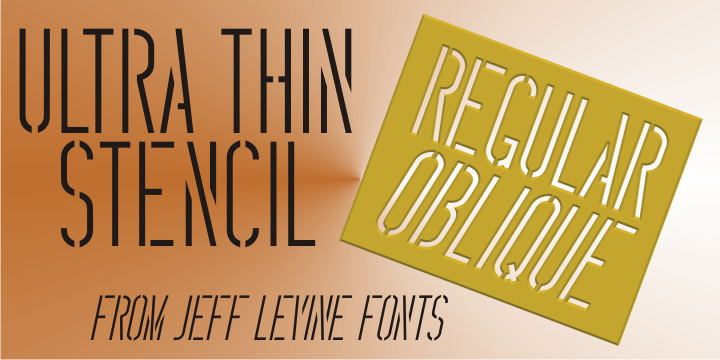
Ultra Thin Stencil
Online auctions offer a treasure trove of lost or forgotten merchandise, and many items pertaining to lettering just beg to be digitized into a typeface.
Case in point is a partial set of brass stencils that were the visual model for Ultra Thin Stencil JNL. While most of the brass interlocking stencils available now and in the past have bold lettering for easy readability, this particular set consisted of condensed letters with thin lines.
Available in both regular and oblique versions, they join a long list of stencil designs available from Jeff Levine Fonts.